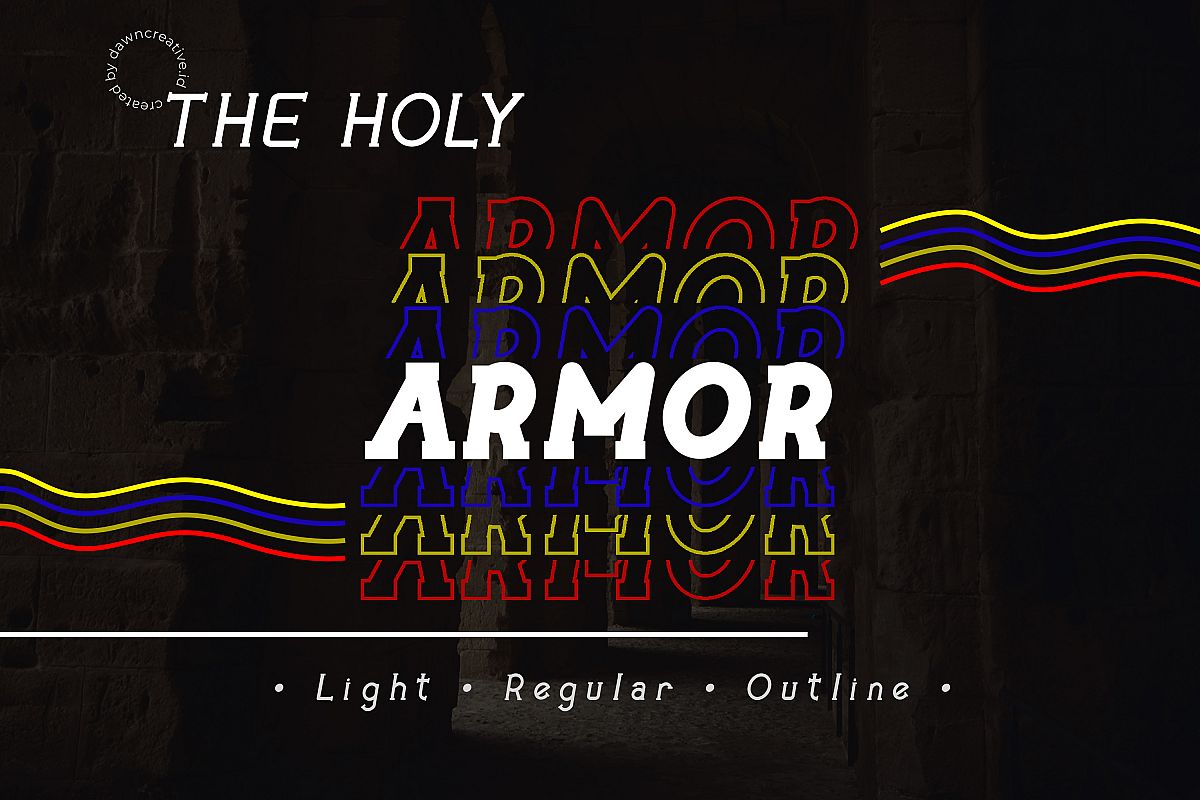
The Holy Armor
The Holy Armor is a serif font with 3 styles: Regular, Light, and Outline. It will be perfect for your design. It will be matched for packaging, poster, flyer and many more. This font is Unique but still has an elegant and modern style.
• Basic Latin A-Z
• Symbols